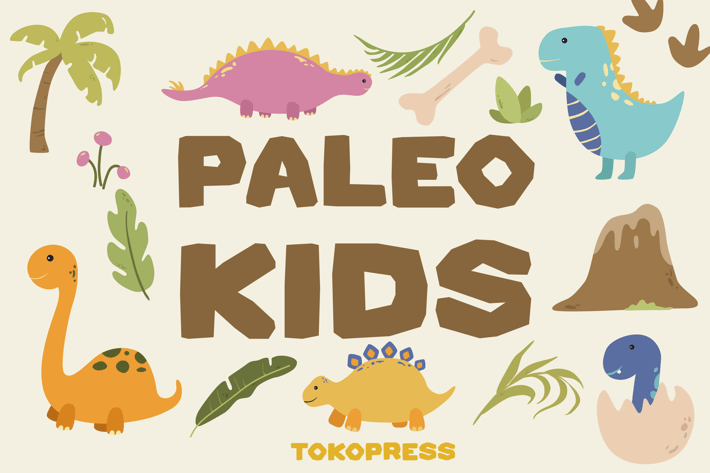
Paleo Kids - Children font
Paleo Kids - Children Font
Paleo Kids is a stone-textured cartoon display font with bold blocky curves and a prehistoric vibe—designed to spark curiosity and laughter across dino-themed, tribal, and history-based children’s content. Its hand-crafted look blends rugged, primitive style with a friendly feel, making it perfect for educational stories, games, and playful posters. With soft terminals and exaggerated proportions, Paleo Kids brings a fun, earthy tone to every letter.
Perfect for dino-obsessed kids, historical adventures, or classroom posters, Paleo Kids transforms your visuals into a journey through the stone age. From birthday cards to museum displays and book covers, this font adds a bold and expressive tone. Its hand-drawn character evokes storytelling charm and helps connect young audiences to ancient themes with humor and imagination. Great for gaming UIs, animated videos, and prehistoric-themed events.
Key Features :
Prehistoric-Inspired Lettering
- Chunky, rustic strokes for primitive atmosphere
- Hand-crafted letterforms with subtle stone-carving feel
Built for Kids & Education
- Ideal for dinosaur books, tribal games, history units & playful branding
- Fits museums, learning tools, classroom walls & character dialogue
* Distinct & Eye-Catching
- Soft edges and exaggerated shapes ensure standout visibility
- Makes headings and callouts visually fun and memorable